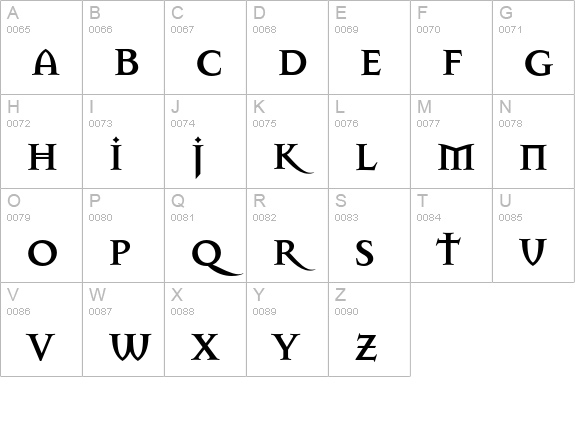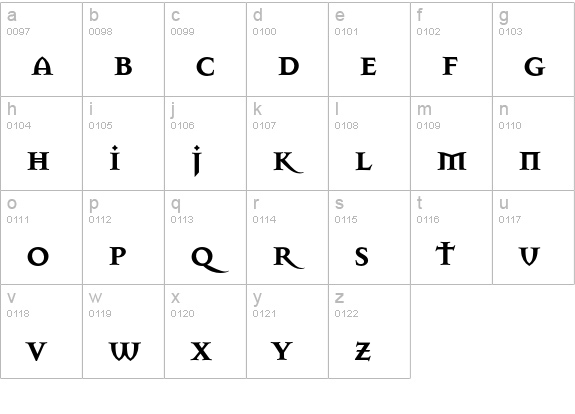
MansonBold Font Details
Introducing MansonBold, a captivating and versatile font that effortlessly combines elegance with a modern twist. This one-of-a-kind typeface is perfect for creating eye-catching headlines, branding materials, and captivating designs that demand attention. With its bold and commanding presence, MansonBold exudes confidence and sophistication. Its strong, thick strokes convey a sense of power and authority, while its clean lines and carefully crafted curves add a touch of elegance and refinement. Designed with utmost attention to detail, MansonBold is a true masterpiece that will elevate any project to new heights. Its versatility allows for seamless integration into a variety of design styles, making it a go-to choice for both print and digital applications. But what truly sets MansonBold apart is its availability as a free download at FontsMarket.com. Yes, that's right, this extraordinary font can be yours without any cost. Whether you're a professional designer or a creative enthusiast, MansonBold offers you the opportunity to unleash your creativity without breaking the bank. So why wait? Head over to FontsMarket.com and discover the beauty and power of MansonBold. Embrace its captivating presence and make a bold statement with your designs. Download this remarkable font today and let your creativity run free.